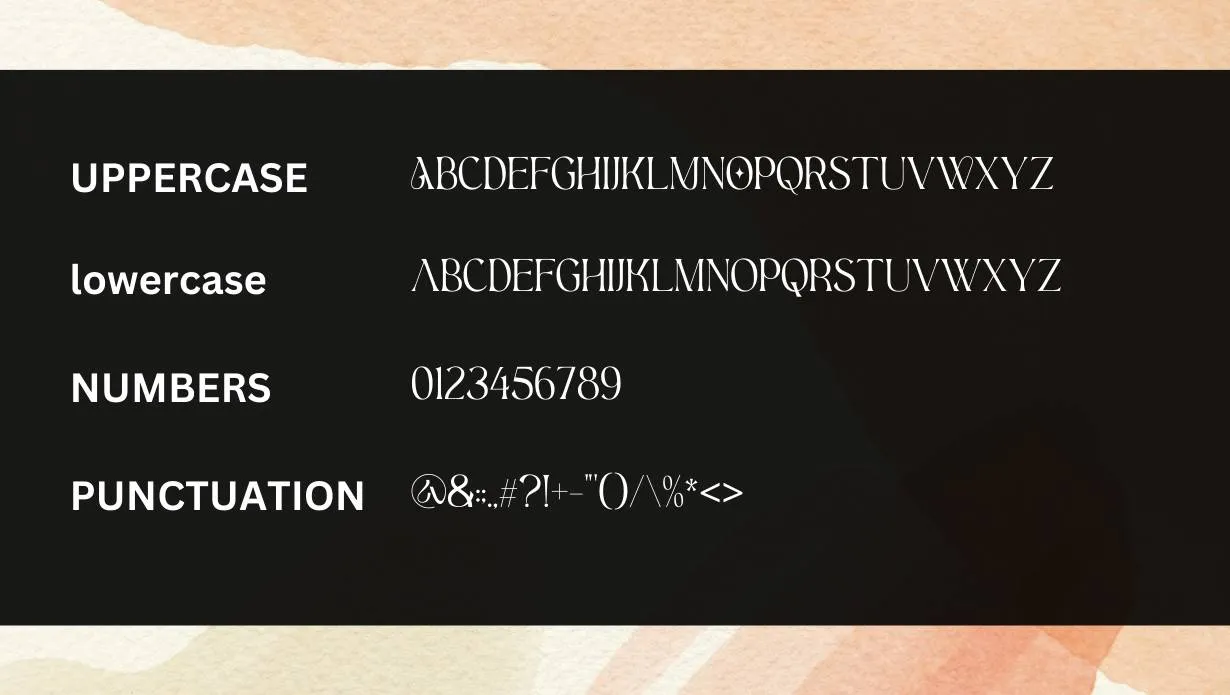
Aesthetic as the word itself says something beautiful, captivating, and pleasing to the eye. Aesthetic Font is a stunning typeface with stylish bold strokes which was designed and shared by Figuree Studio.
It is a Fancy font and has fixed three weights including regular, bold, and italic which make it suitable for creating perfect displays and designs.
Aesthetic Font Family
- Aesthetic Regular
- Aesthetic Italic
- Aesthetic Bold
View of Aesthetic Font